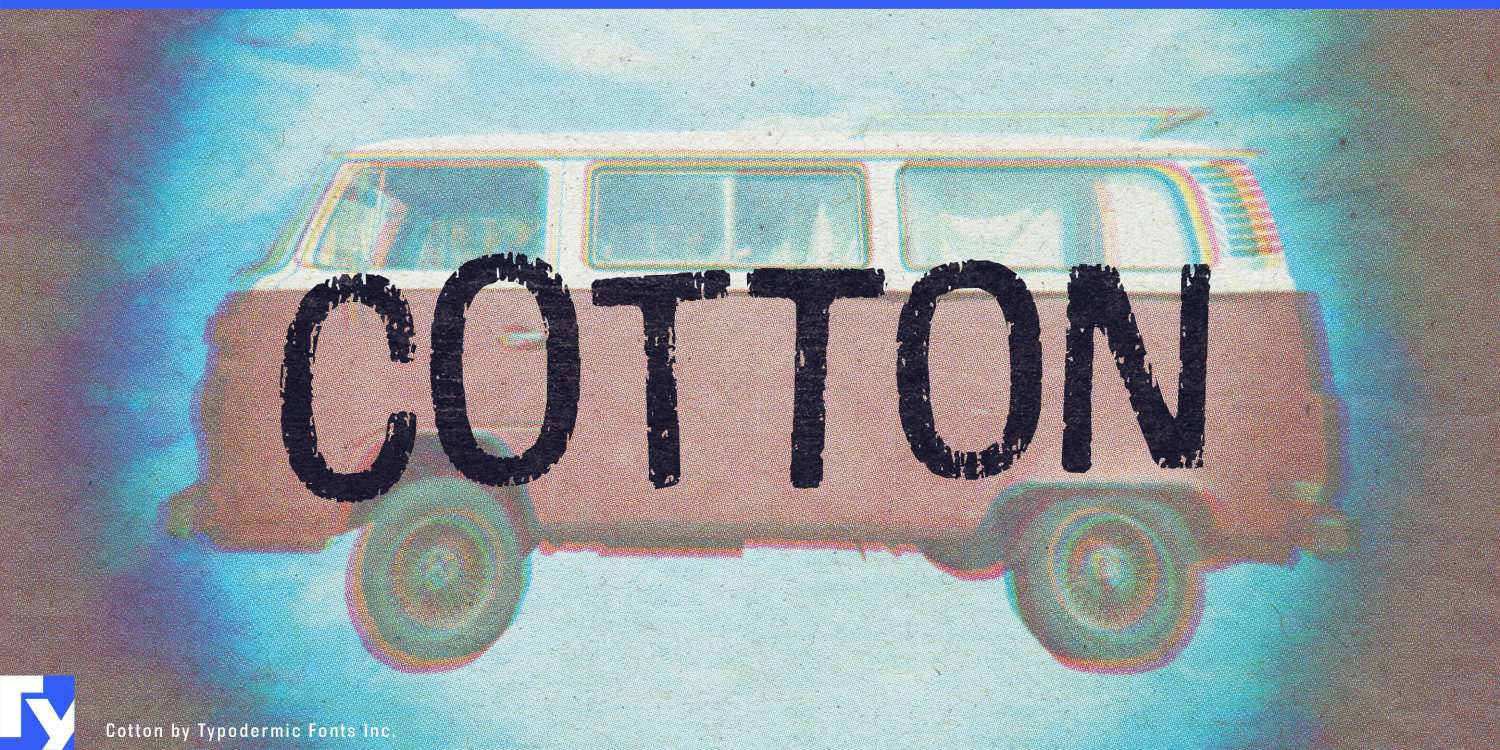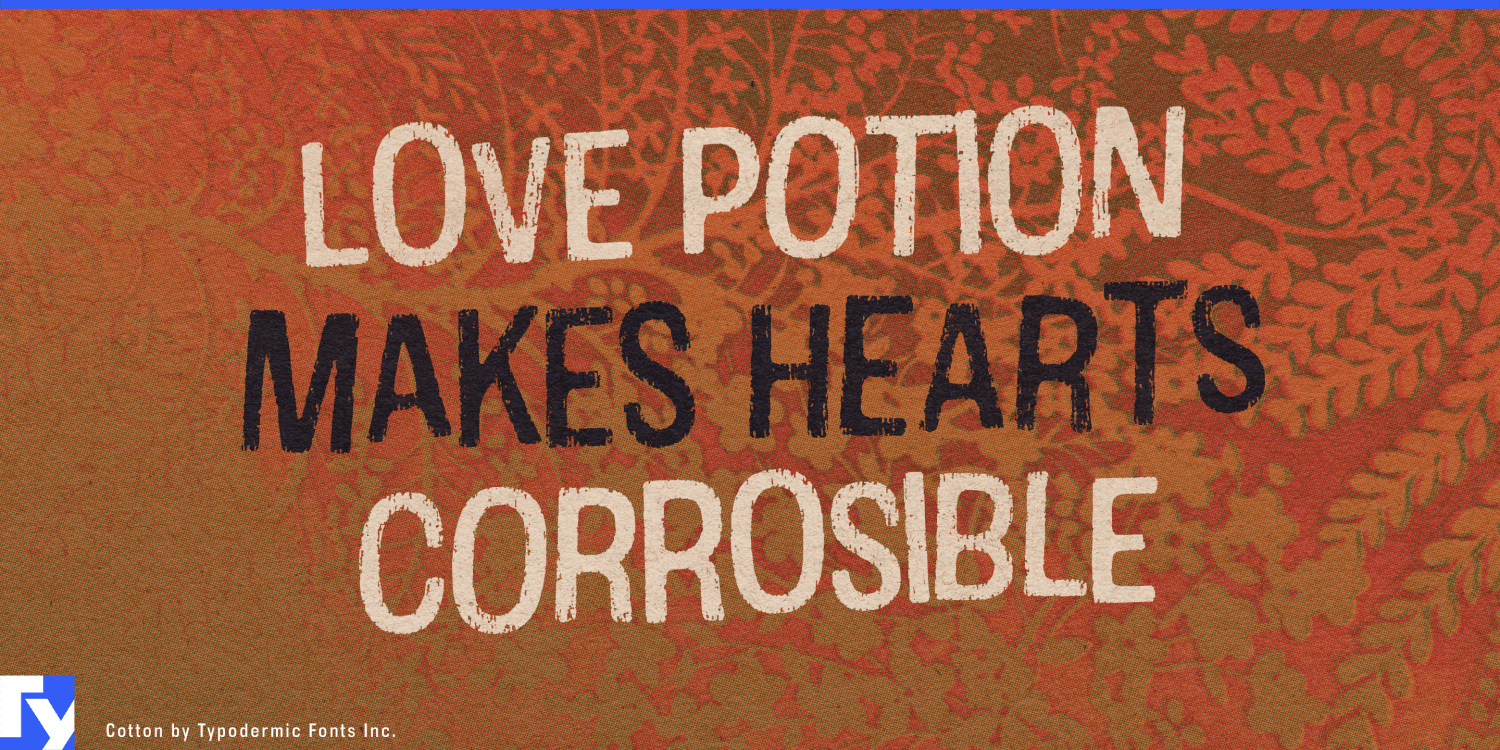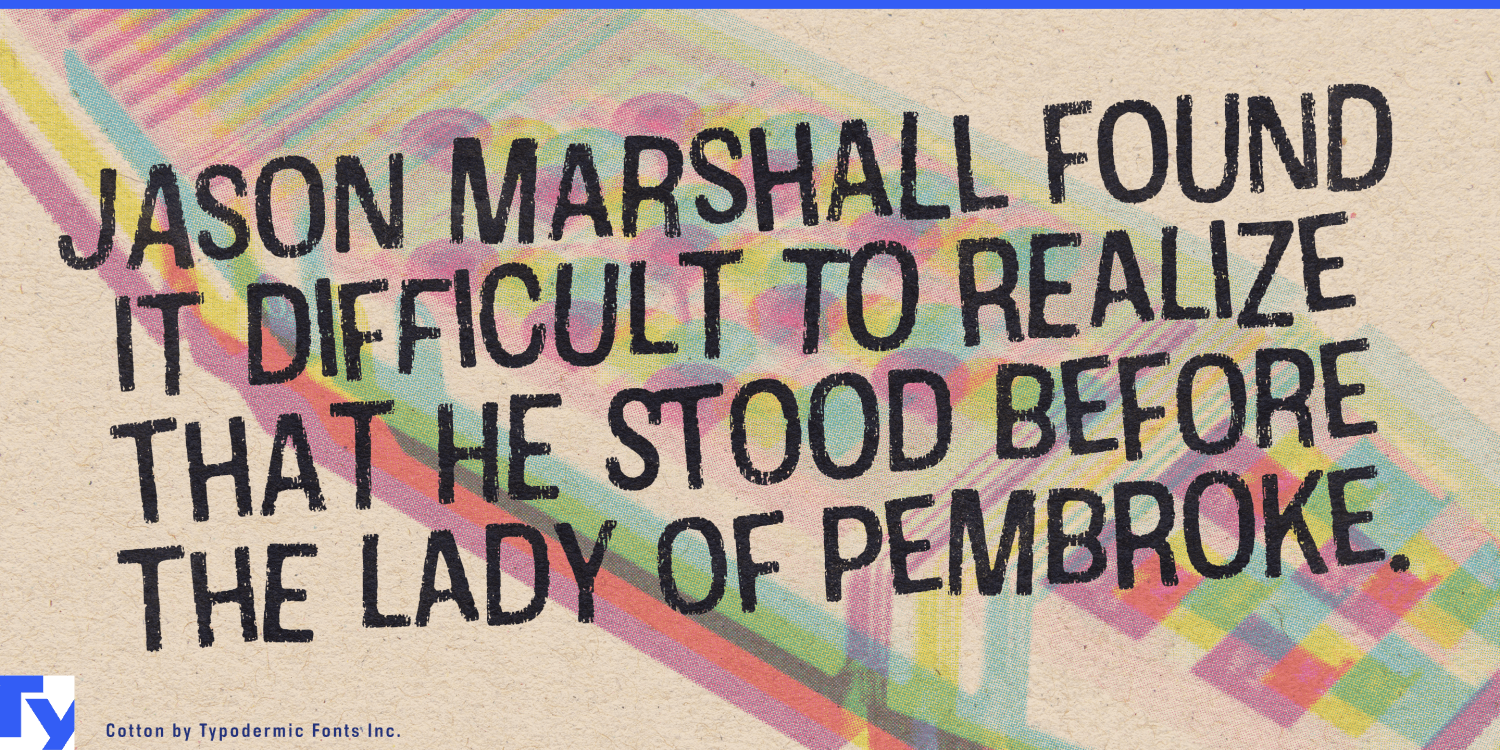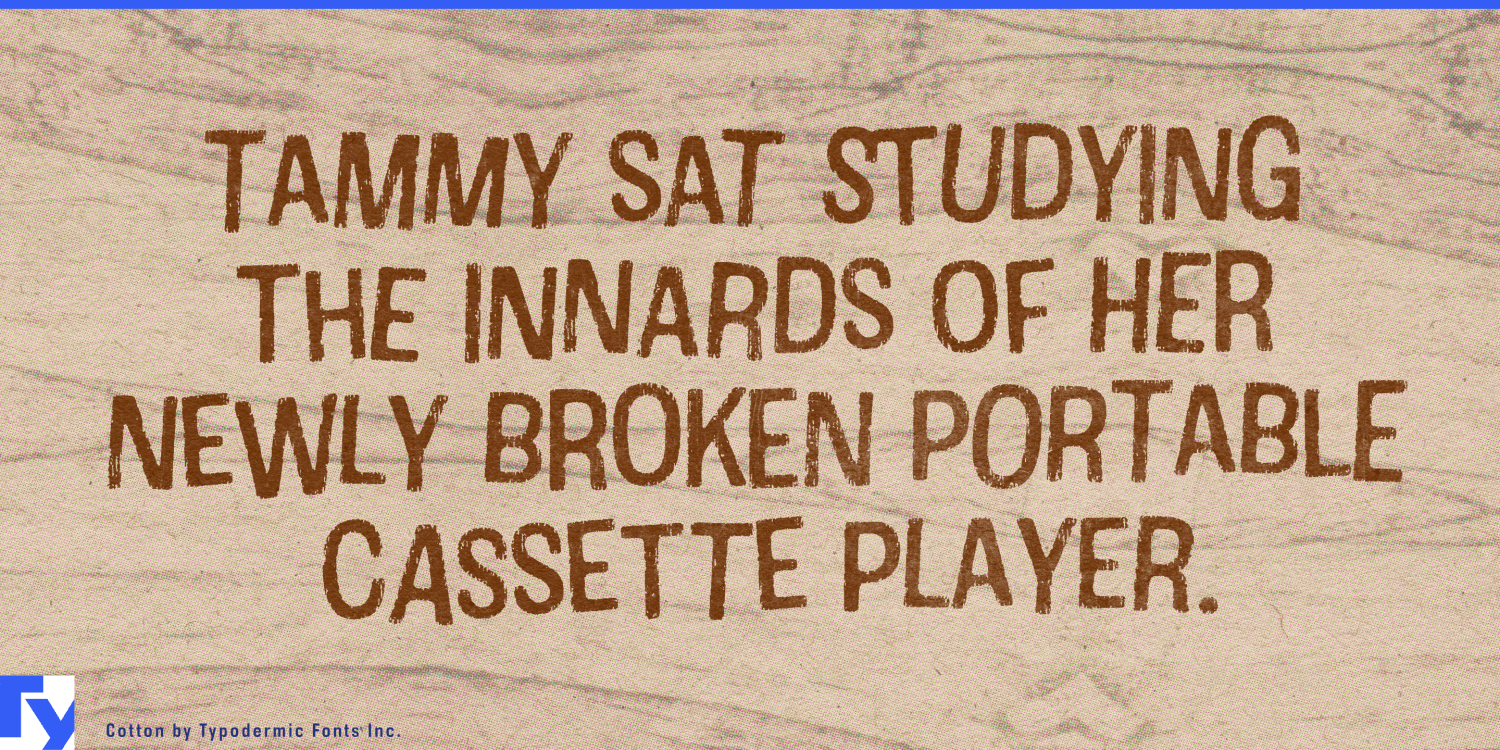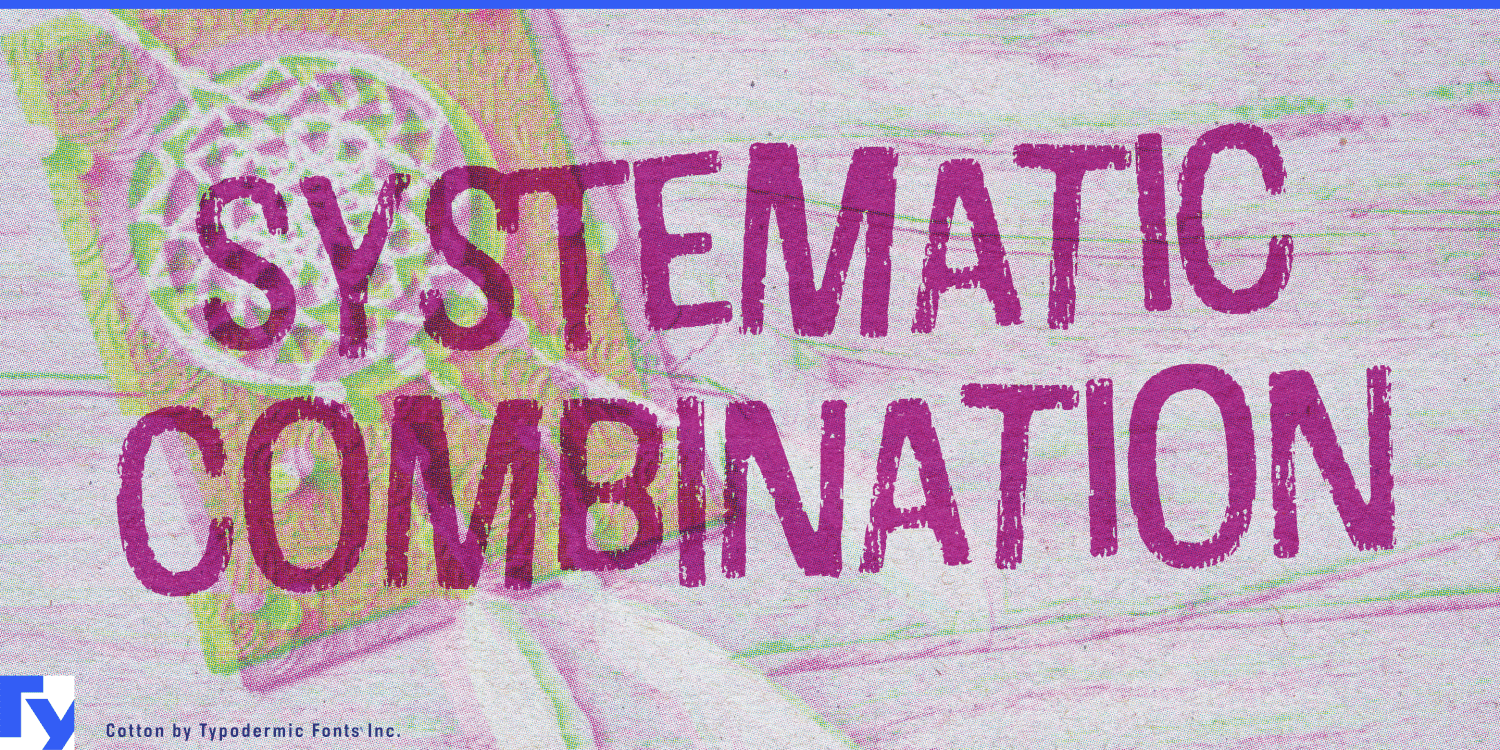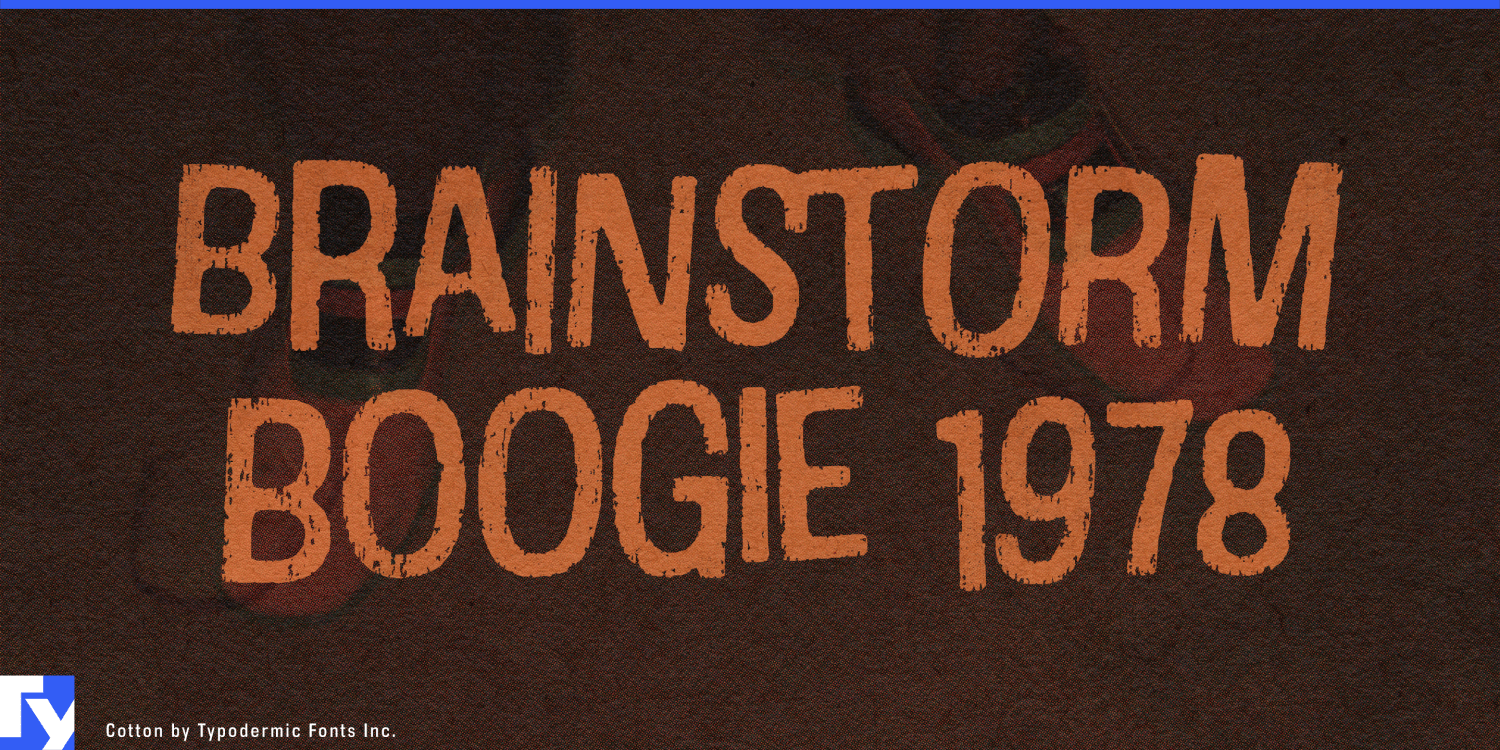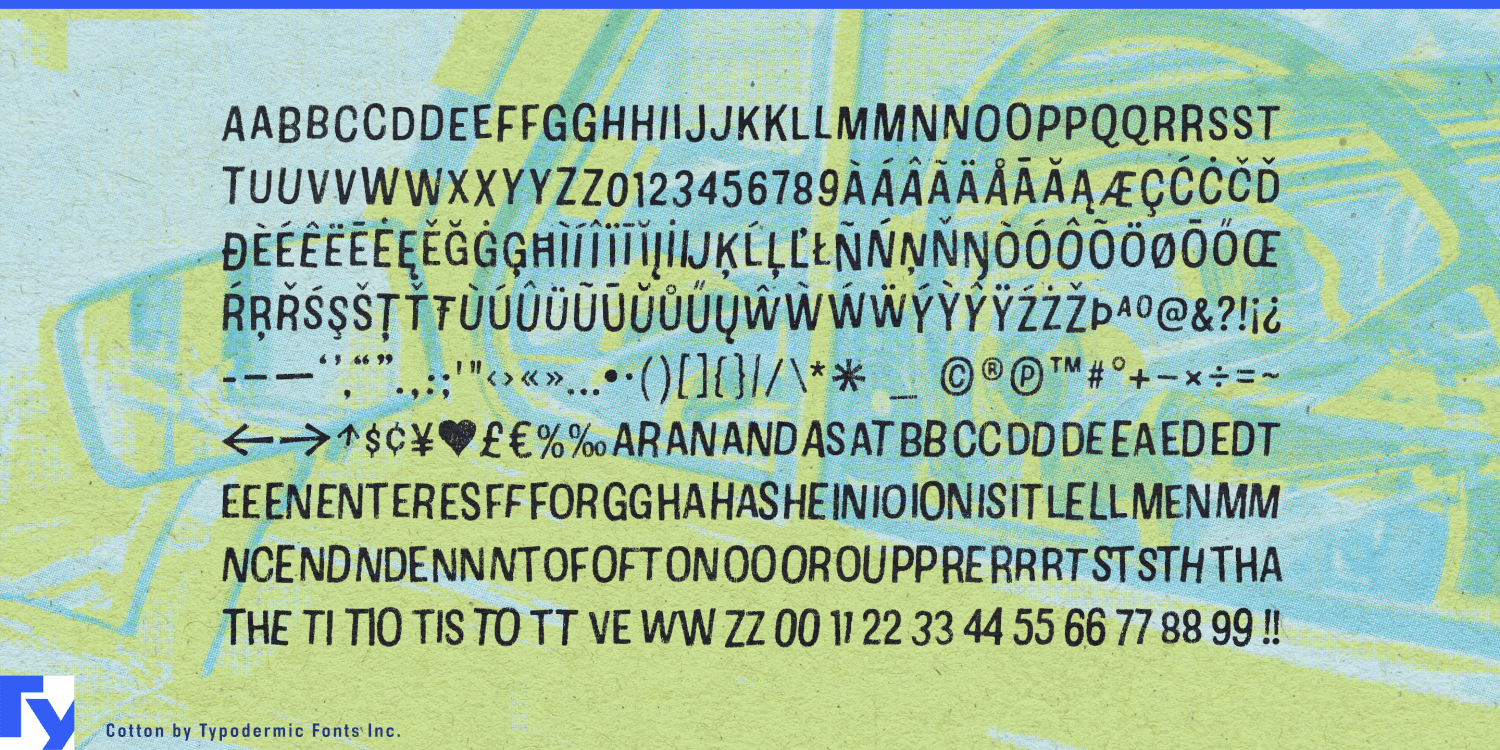
Cotton
Font Family by Typodermic
Cotton is built to look like ink that has spent years on a T-shirt. Its distressed texture comes from real flaking material captured from fabric, producing the fine, uneven disappearance associated with an old screen print rather than the scratches, gouges, and random holes of a generic grunge effect. The underlying all-caps lettering is narrow and direct, leaving the wear itself to do most of the visual work.
That makes Cotton particularly useful when new merchandise needs to resemble something that has already survived a few decades. Heritage sports collections can use it for team names, cities, championship years, divisions, and short slogans on throwback tees and sweatshirts. The same lettering can extend into hangtags, neck prints, retail displays, and launch graphics, creating a collection around the appearance of a genuinely well-worn supporter shirt.
Music merchandise provides an equally natural setting. Anniversary tours, album reissues, reunion projects, archival releases, and licensed back-catalog collections often need graphics that feel closer to an old concert shirt than to contemporary promotional design. Cotton can carry tour names, venue and city lettering, album titles, dates, crew-style identifiers, and tour-back typography while preserving the impression that the print has aged with the garment.
Licensed entertainment apparel opens the same possibility for film, television, and games. Studios and licensing agencies can build shirts around fictional companies, old events, character names, crew graphics, cult properties, anniversary editions, or promotional merchandise that might plausibly have existed when a property first appeared. Cotton helps the typography belong to that imagined artifact rather than looking like clean modern lettering with a distress filter added afterward.
Motorsport and workshop apparel are another convincing fit. Heritage racing programs, performance-parts companies, custom motorcycle brands, restoration shops, tool makers, and machinery companies can use Cotton for circuit names, race years, engine designations, department lettering, factory locations, model numbers, and service slogans.
Substitutions introduce variation into common letter combinations, helping repeated forms avoid the mechanical sameness that can betray a distressed typeface. Cotton is especially useful for merchandise programs where the history needs to be visible before the first shirt has ever been worn.